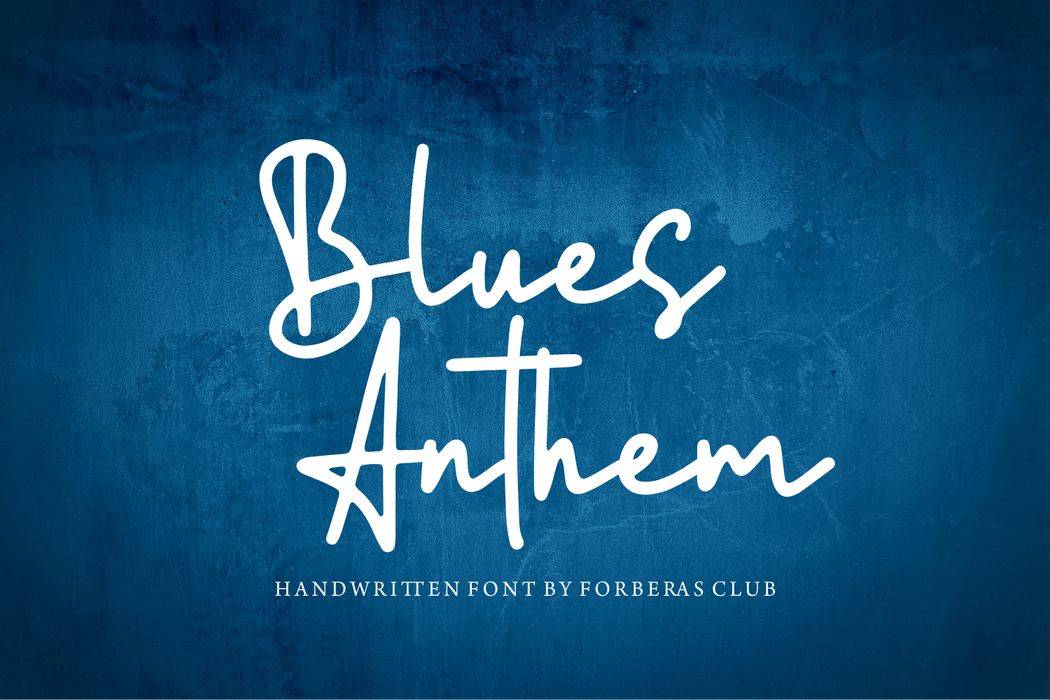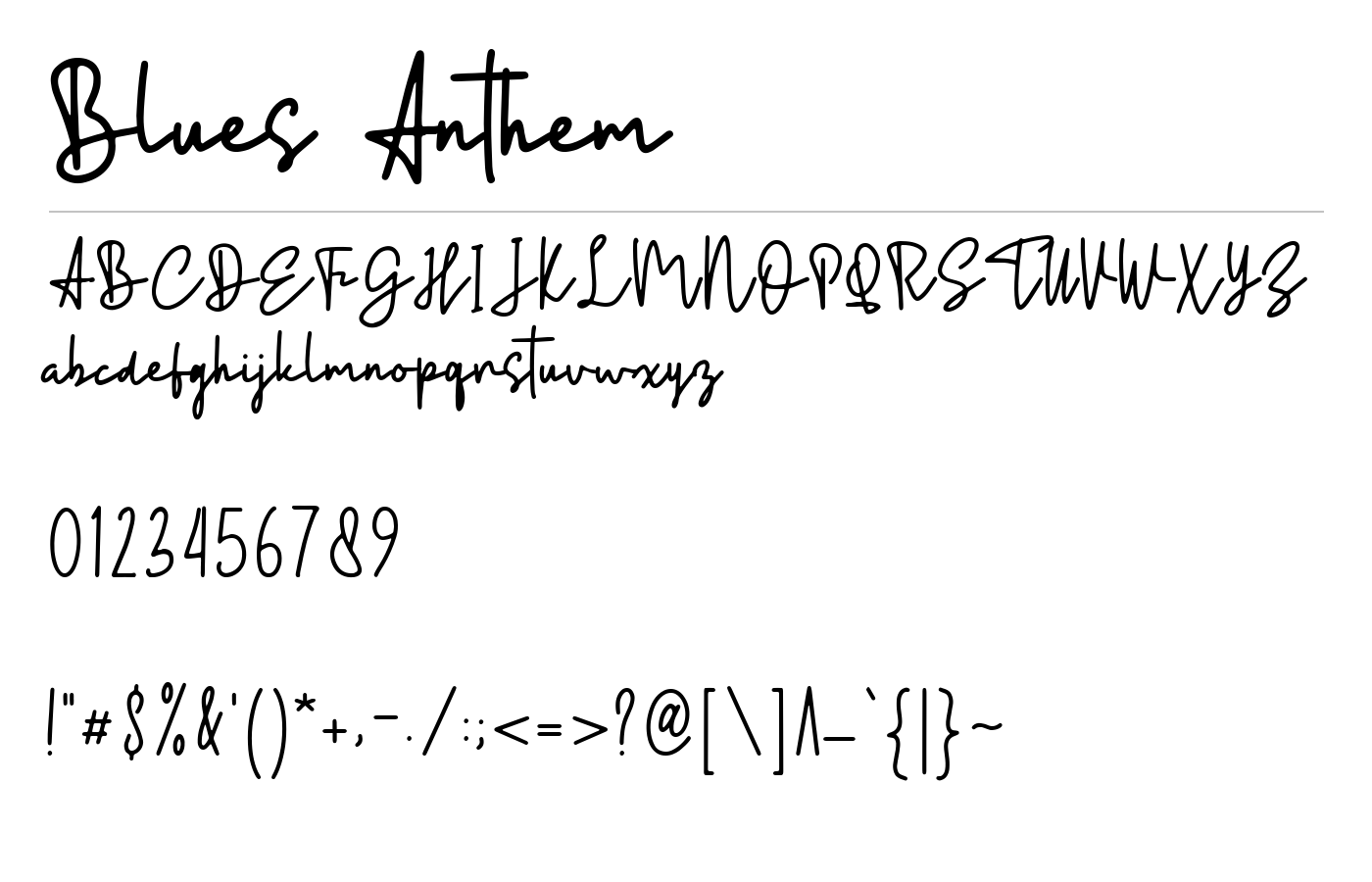
Blues Anthem is a lively, handwritten script font with a casual, playful feel, featuring narrow, tall letterforms and a natural flow between characters. Its fine strokes and informal style make it perfect for creative projects like branding, invitations, and personal expression where a friendly, approachable vibe is desired. This font works best in headlines and logos, adding a personal touch without sacrificing readability.
Blues Anthem Font
About Blues Anthem Font
| Font family | Blues Anthem Font |
| Designer | Forberas |